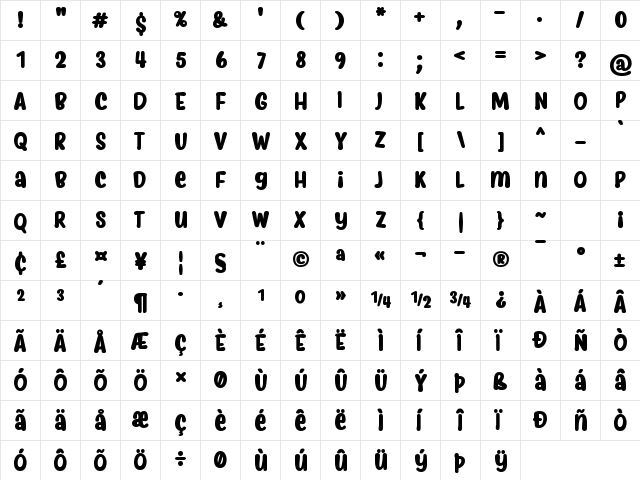
Myfrida Bold
Design Context for Myfrida Typeface
Myfrida is a composed and adaptable typeface that performs quietly and consistently across a wide range of design contexts. The heavy weight commands attention and anchors typographic hierarchies.
Pro Tip: Use Myfrida in both headline and body roles to test its range before committing to a single application.